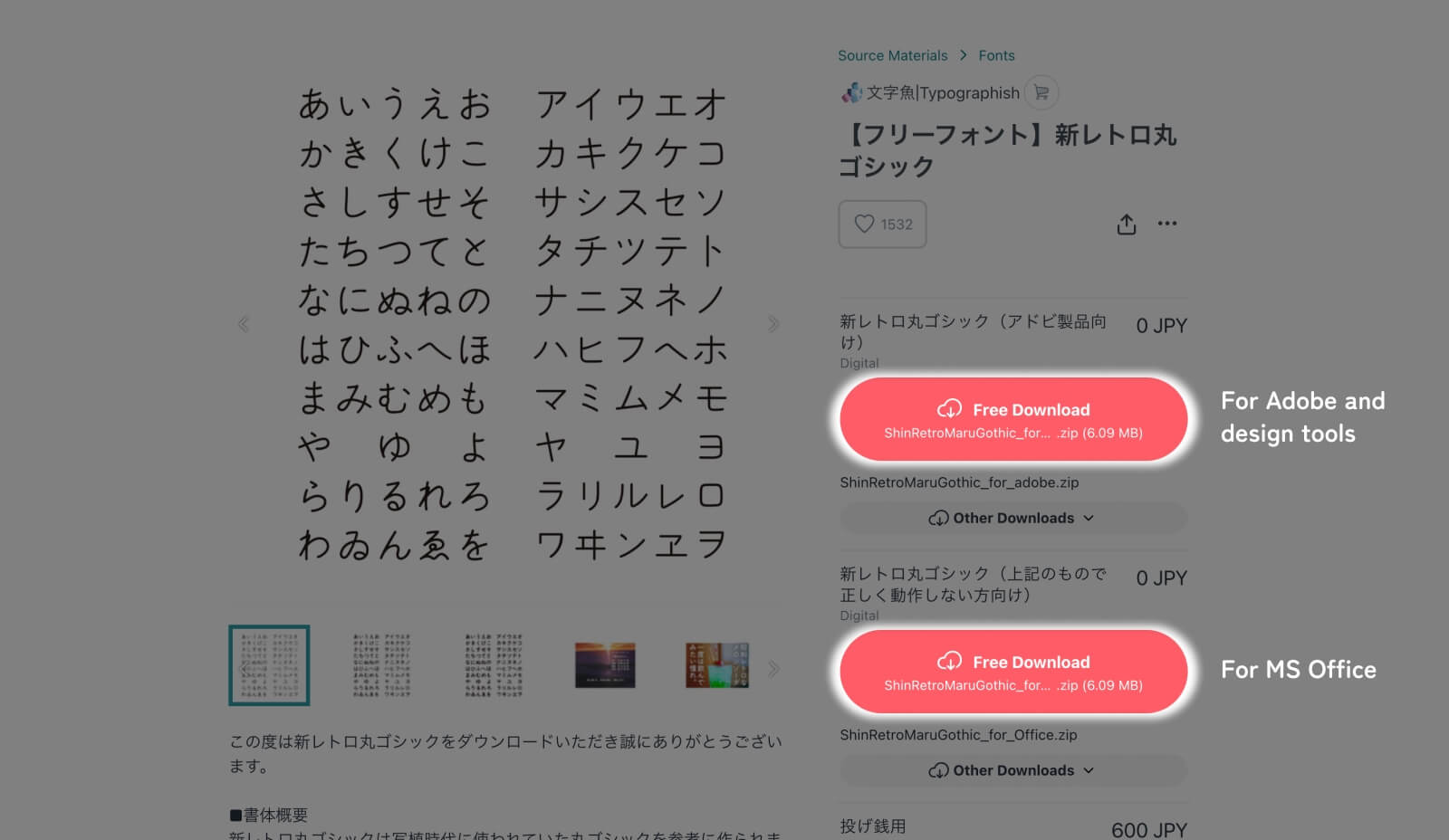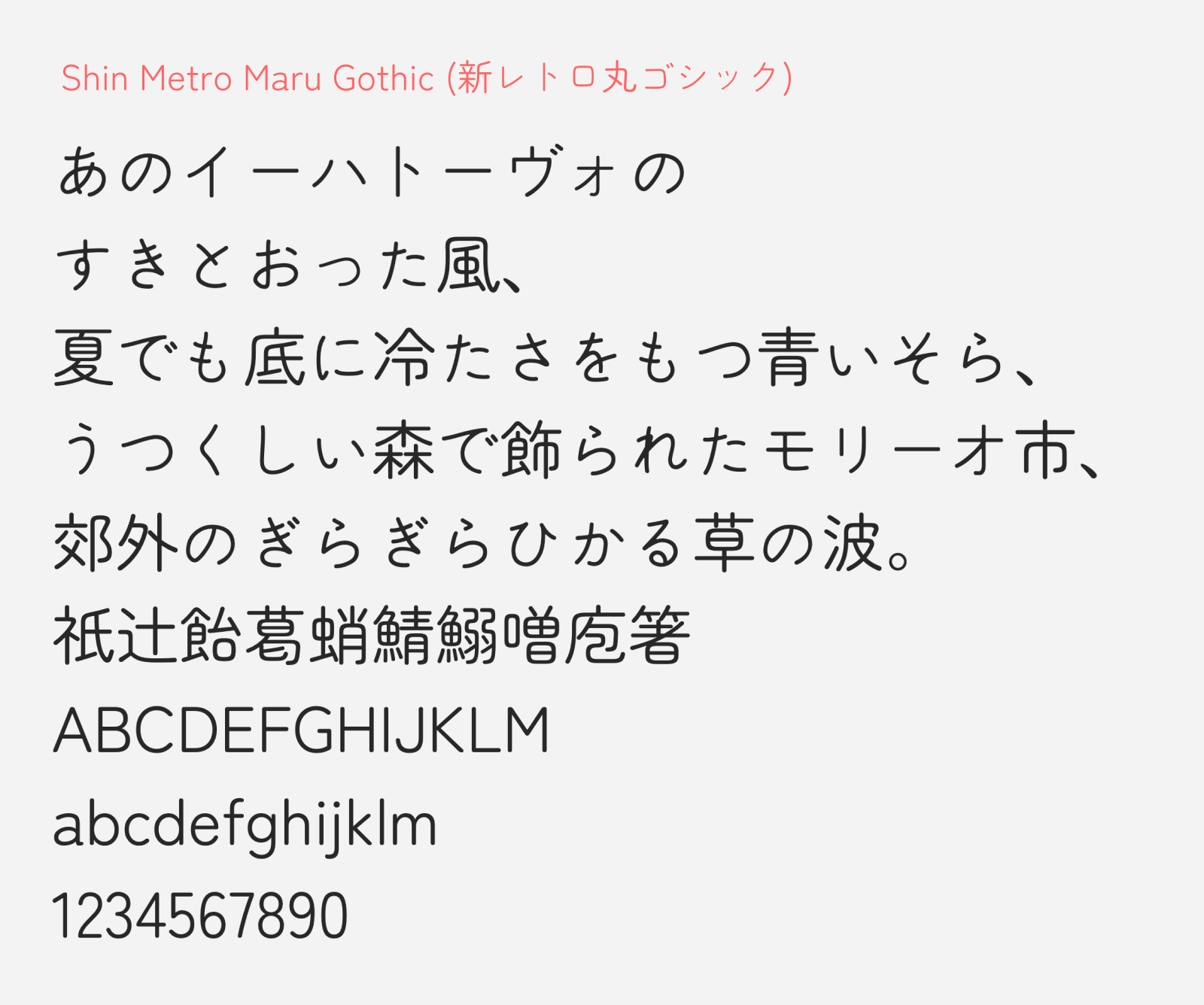
Shin Retro Maru Gothic
Preview of Shin Retro Maru Gothic, a rounded gothic style free Japanese font
Shin Retro Maru Gothic (新レトロ丸ゴシック) is a free-to-download Japanese rounded gothic font, designed with a very specific aesthetic reference in mind: the shasshoku (写植) era, when phototypesetting ruled Japanese print. That origin story is written all over the font’s kana — the counters are intentionally narrow, the strokes carry a subtle expressiveness, and the overall feel has that unmistakable Showa-to-Heisei nostalgia that you’d recognize from old magazine spreads or broadcast television captions. One design detail worth calling out specifically: the character “と” features its first stroke deliberately breaking through the form, which was a common characteristic of phototypeset faces of that period. It’s the sort of intentional quirk that signals a designer who’s paying close attention to typographic history rather than just rounding off a base font.
The glyph set is largely built on ZEN Maru Gothic, with the kana and select punctuation replaced with this font’s designer, Typographish’s own original designs. The font comes in three weights — Regular, Medium, and Bold — which covers you from body text all the way through to headlines. Two editions are available: one optimized for Adobe applications (Illustrator, Photoshop, etc.), where all three weights appear as a single font family with weight switching, and another for Office and other software, where each weight registers as a separate font. It’s a thoughtful distinction that saves a lot of frustration depending on your workflow. The font is released under the SIL Open Font License, so it’s free for both personal and commercial use.
• Hiragana and Katakana
• Kanji (up to JIS Level 1 and 2)
• Alphanumerics
• Symbols and Punctuations